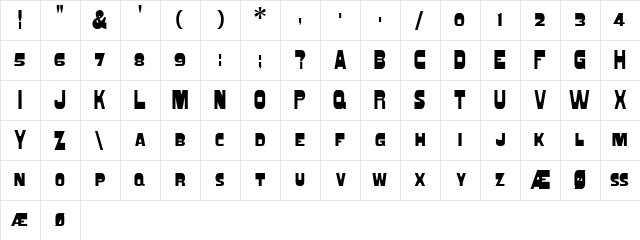
Blacktop SmallCaps
Design Context for Blacktop Typeface
Blacktop offers clean, dependable letterforms without strong stylistic allegiance, making it a practical choice for designers who need flexibility.